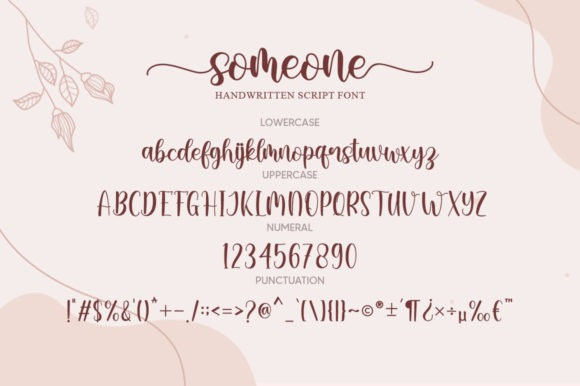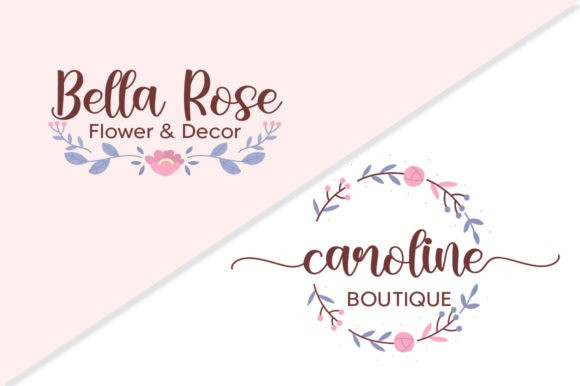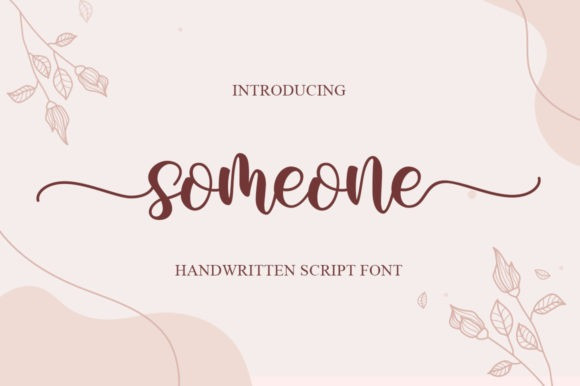
Someone Font
Someone Font is a lovely and timeless handwritten font. It is the best choice for creating eye catching logos, branding and quotes. Someone is PUA encoded which means you can access all of the glyphs and swashes with ease!